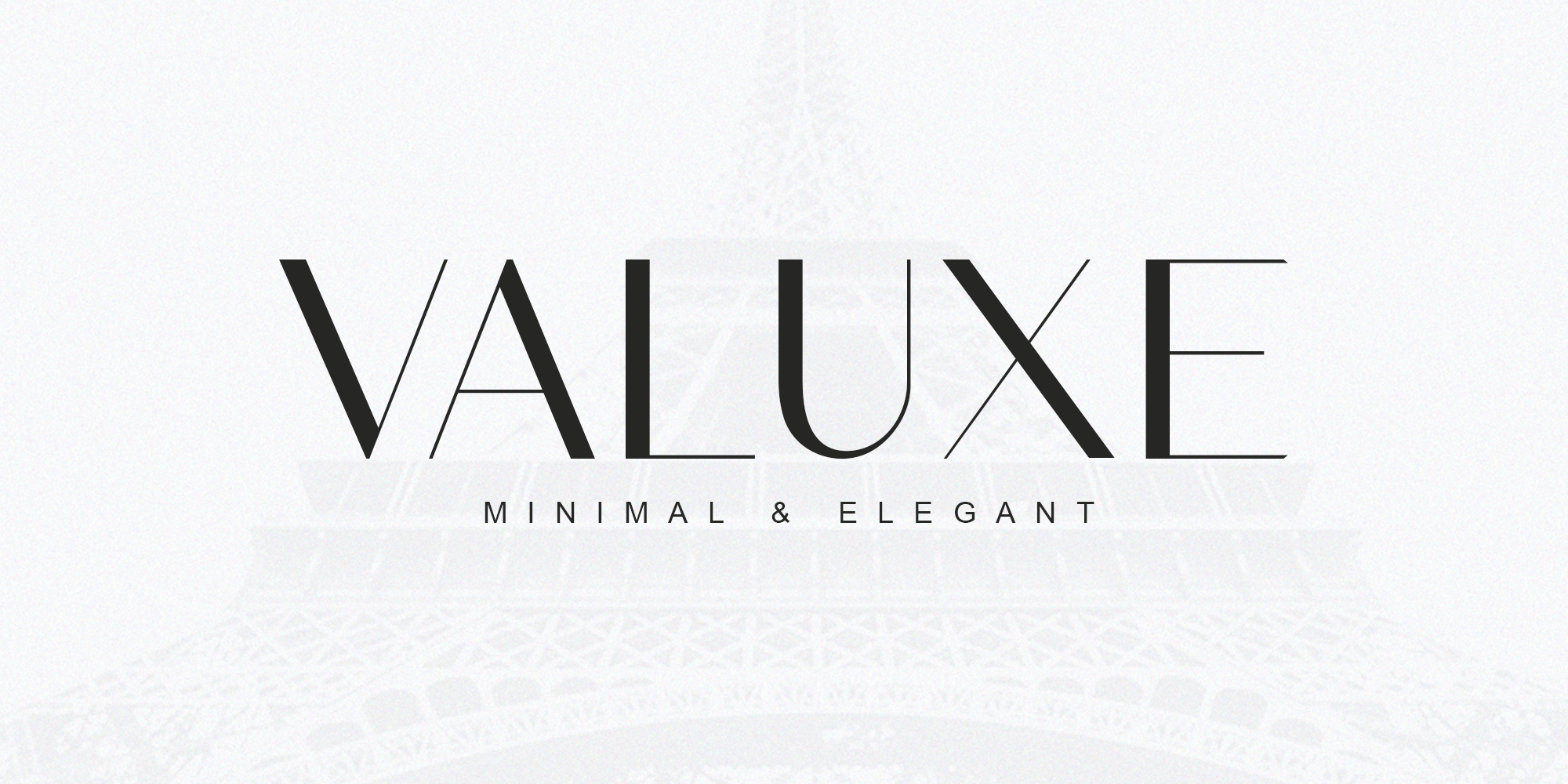
Valuxe Font is perfect for luxury hotel branding, premium automotive marketing, high-end real estate presentations, exclusive jewelry advertisements, upscale restaurant menus, prestigious award ceremonies, elite membership cards, and luxury travel brochures. Its opulent character makes it ideal for projects targeting affluent clientele and premium market segments.
What makes Valuxe Font exciting is its ability to instantly communicate wealth, prestige, and exclusivity through masterfully designed typography. The refined letterforms feature sophisticated geometric precision with subtle luxury details that suggest premium quality and elite status. This typeface embodies opulence and distinction, making every design feel valuable and extraordinarily prestigious.
Valuxe Font family includes Regular, Bold, Light, Medium, Italic, and Extended variations, offering designers complete flexibility for creating luxurious and impactful typographic solutions across diverse applications.
Establish unparalleled prestige with the exclusive appeal of Valuxe Font Free Download. This remarkable typeface brings supreme luxury to any design project, whether you're developing brand identities for elite corporations, crafting promotional materials for luxury services, or designing communications for high-net-worth audiences. The font's prestigious architecture and wealthy aesthetic make it essential for projects requiring ultimate sophistication. Valuxe Font perfectly captures the essence of luxury lifestyle while ensuring maximum visual impact across all premium applications. Its distinguished character forms and affluent design language make it ideal for brands seeking to communicate exclusivity and superior value, delivering unforgettable results that resonate with discerning audiences who demand nothing but the finest quality and most prestigious presentation.